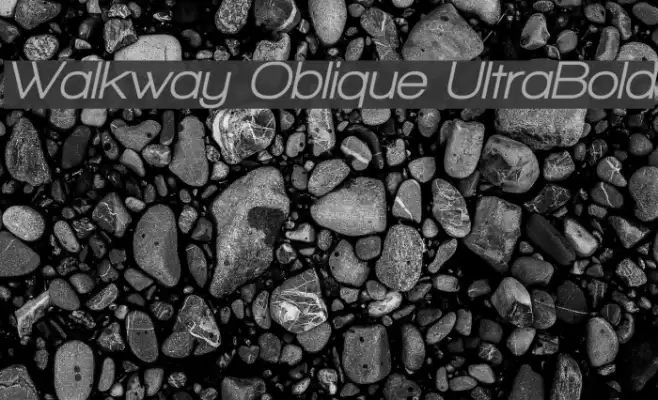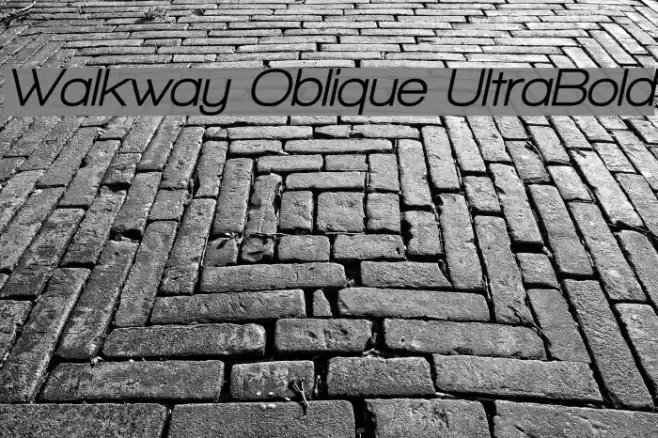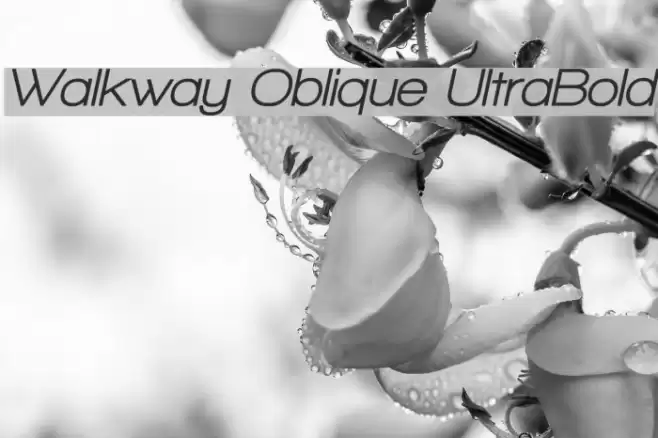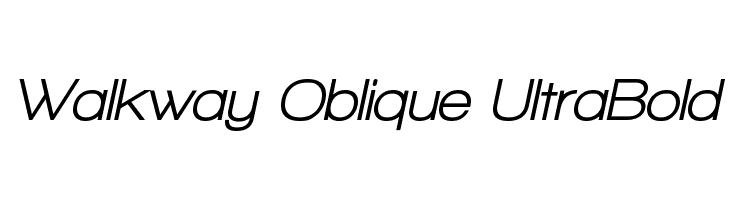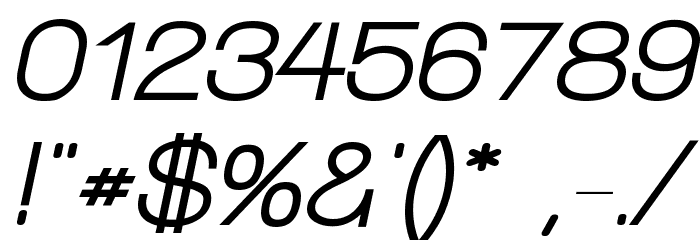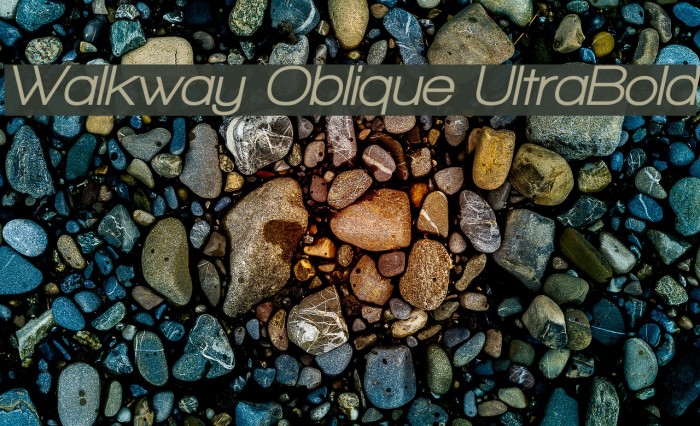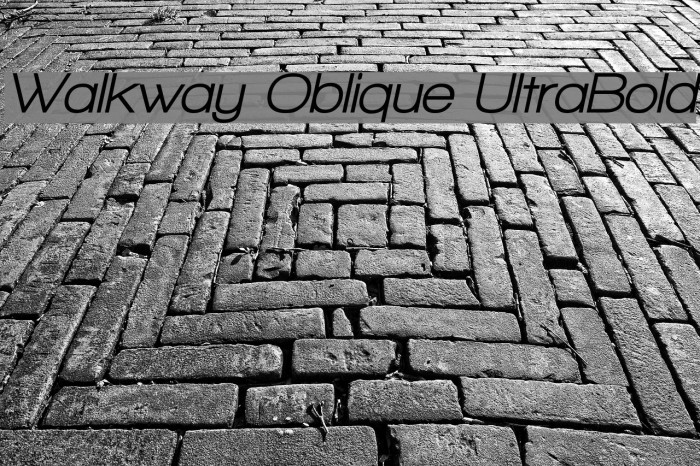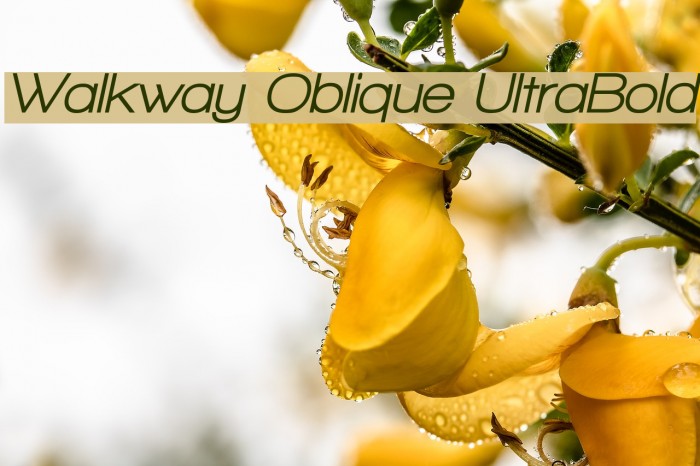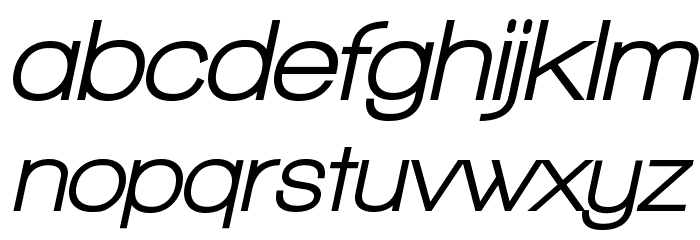
Walkway Oblique UltraBold Font
Walkway Oblique UltraBold Description
This font exhibits a sleek, modern aesthetic with a pronounced oblique slant, giving it a dynamic and forward-moving appearance. The ultra-bold weight ensures strong visibility and impact, making it suitable for attention-grabbing headlines. The characters are well-defined with a consistent stroke width, contributing to a clean and professional look. The sans-serif style enhances readability while maintaining a contemporary feel. Its geometric shapes and smooth curves provide a sense of precision and elegance, ideal for modern branding and design projects.
A modern, ultra-bold oblique sans-serif font with a sleek and dynamic style from Formal fonts.
- ( Fonts by Graham Meade - GemFonts FREE )
- Proposed Projects: Ideal for modern branding, advertising, headlines, and digital media where a strong, contemporary presence is desired.
- Use Case: Headlines, Logos, Branding